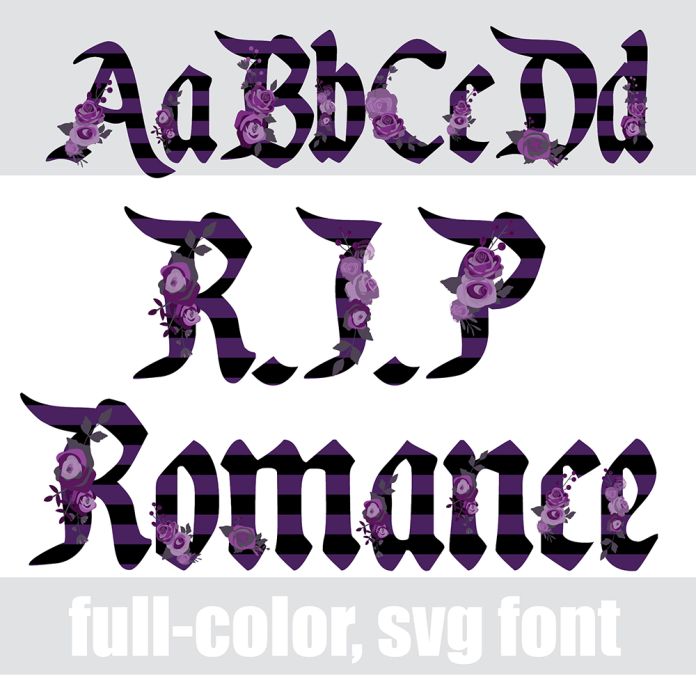
This full-color font features a striped calligraphy font with deep purple and black florals for a creepy, scary, Halloween feel. There is an alt version you can access through your system's character map that contains additional colors of all the letters. This font works best for titles, displays, posters and more. Please note color fonts will show as black in non compatible programs. This font type is compatible with Silhouette Studio.